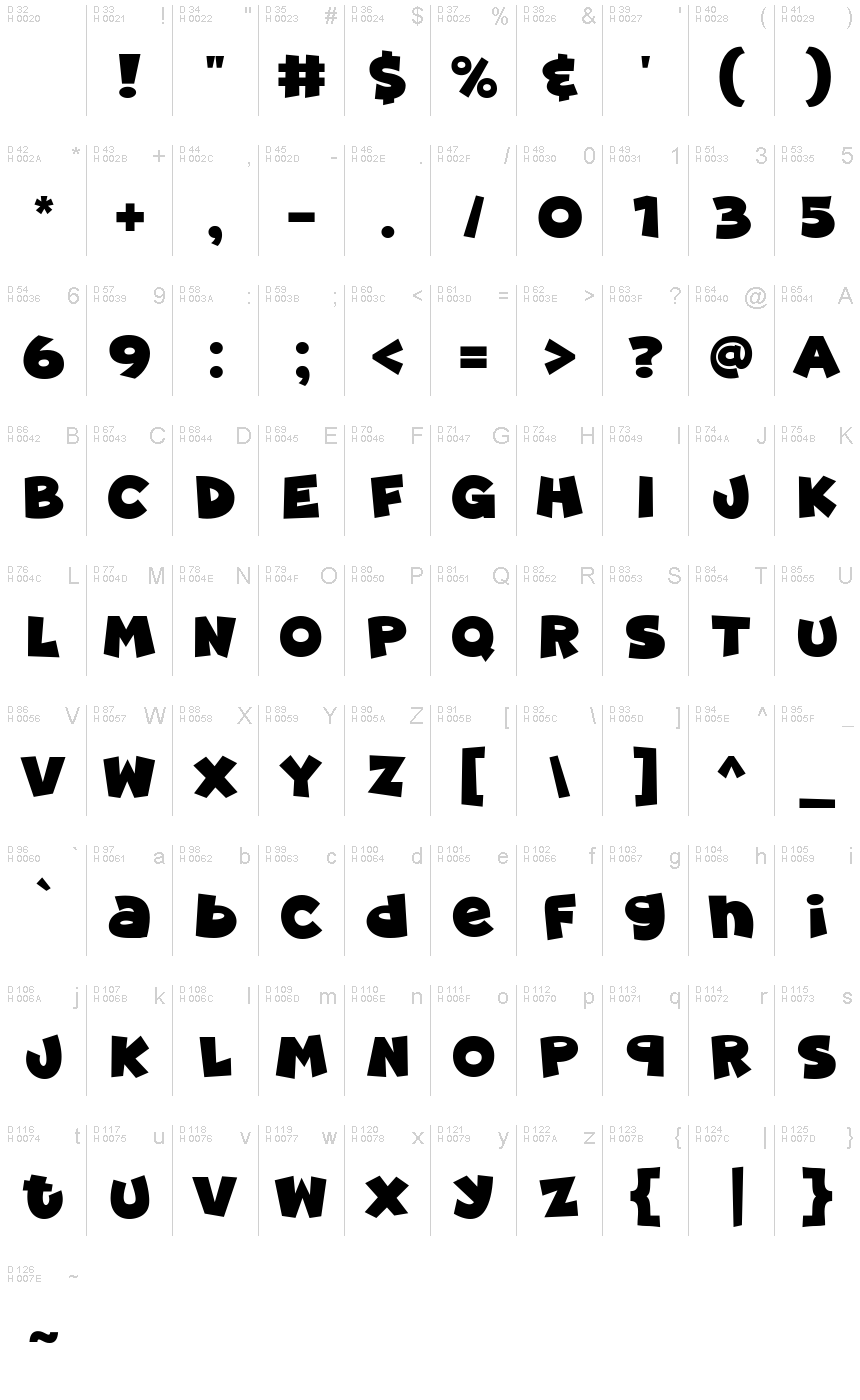
Super Cosmic
Super Cosmic, crafted by the imaginative fsuarez913, bursts onto the scene with a playful presence that's hard to ignore. This display font boasts a cartoon style imbued with an extra-bold weight and a semi-expanded width, creating an aesthetic that is both robust and whimsical. The authoritative strokes and lively contours of Super Cosmic make it not just a typeface but a statement piece for any creative project.
Exuding vibrancy and fun, this font is perfect for designs that aim to stand out—think eye-catching headlines, spirited posters, or dynamic logos. Its exaggerated characters are designed to captivate the audience's attention while maintaining legibility. Super Cosmic's unique flair enables designers to inject personality into their work, ensuring their message is delivered with both impact and charm. Whether for branding or artistic endeavors, this font transforms ordinary text into extraordinary artistry.
Forget boring fonts, Super Cosmic is here to save the day! This font is a superhero of the alphabet, with bold lines, cosmic curves, and enough sass to make any text feel superpowered. So, grab your cape and let your imagination take flight with Super Cosmic!